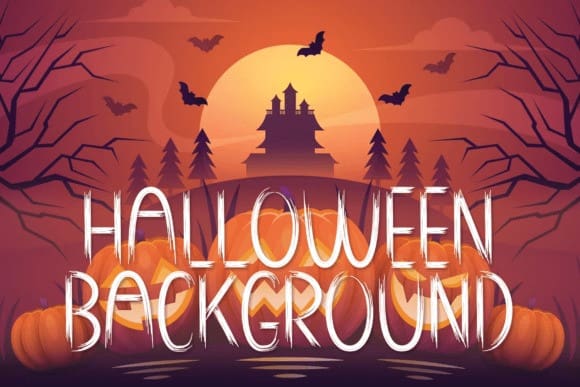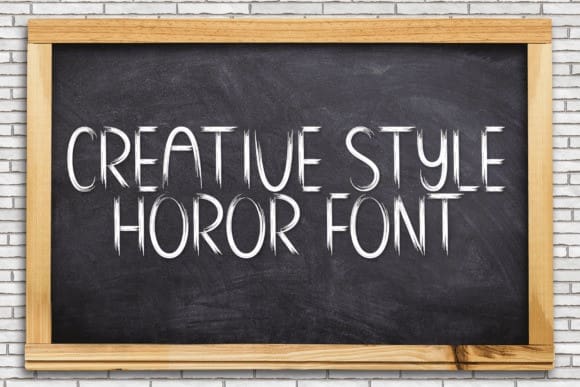
Vampir Brush Font
Vampir Brush Font is a scary font with a minimal effect of brush strokes. Letters make an ambiance of horror on invitations, postcards, posters, and headings for a Halloween event; this font can be used in every scary setting.